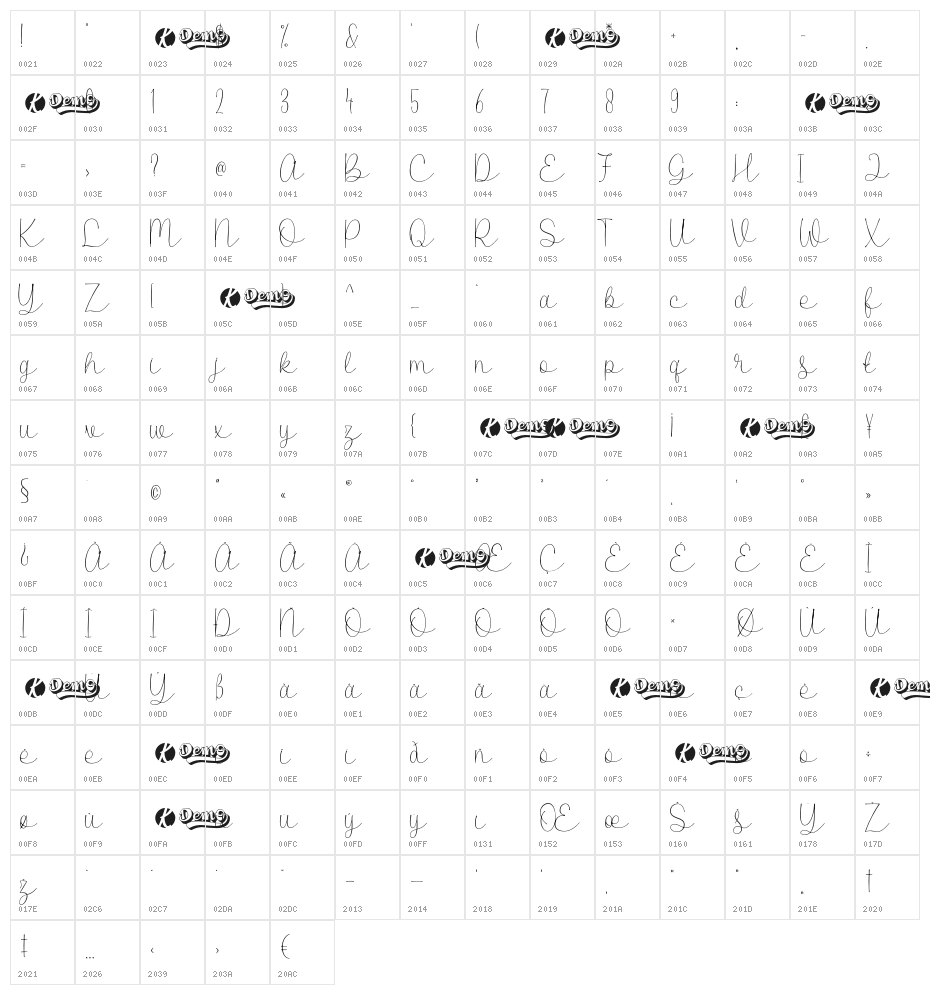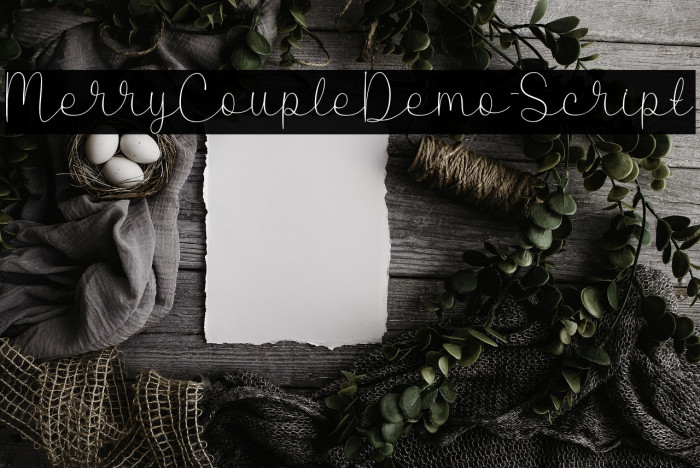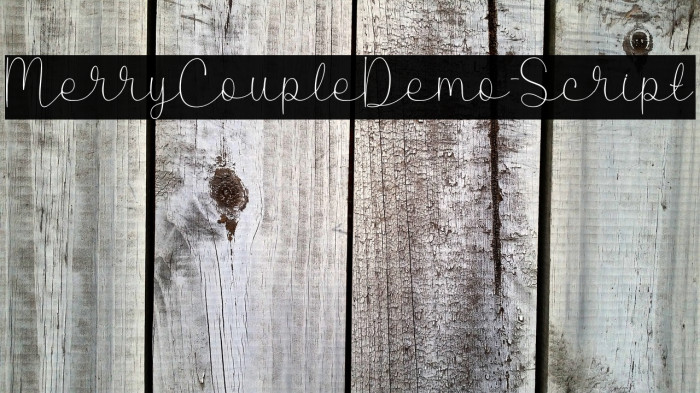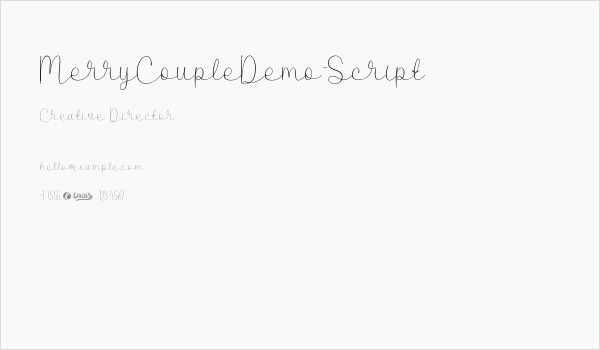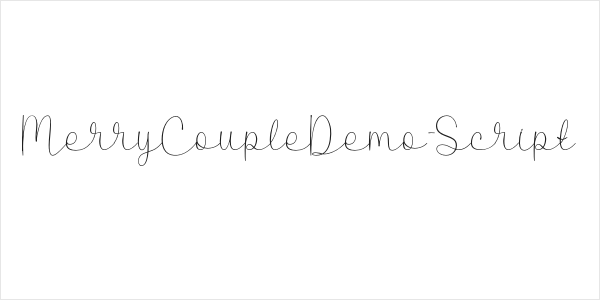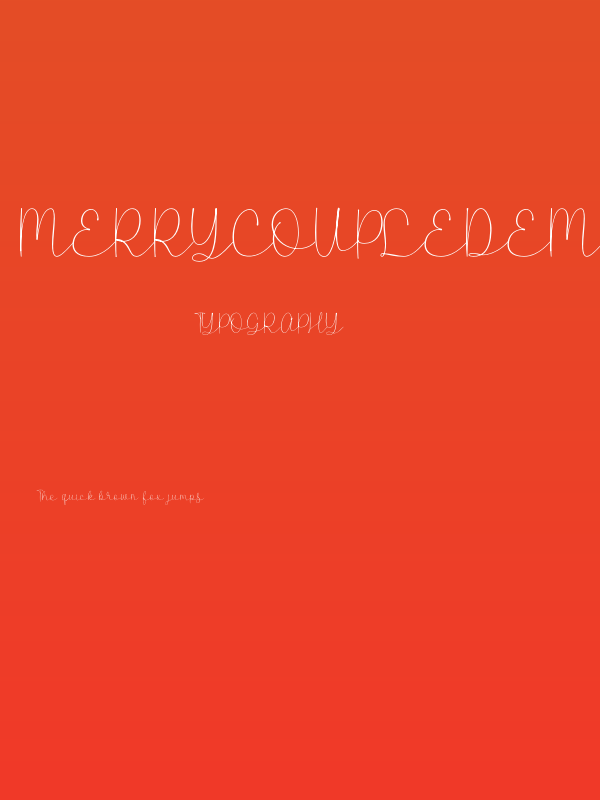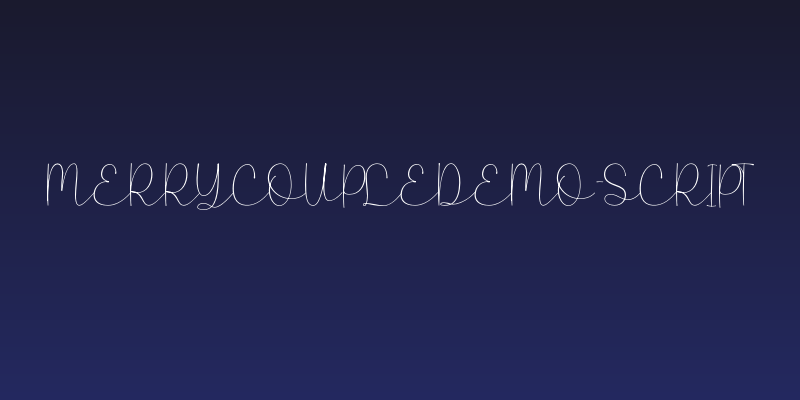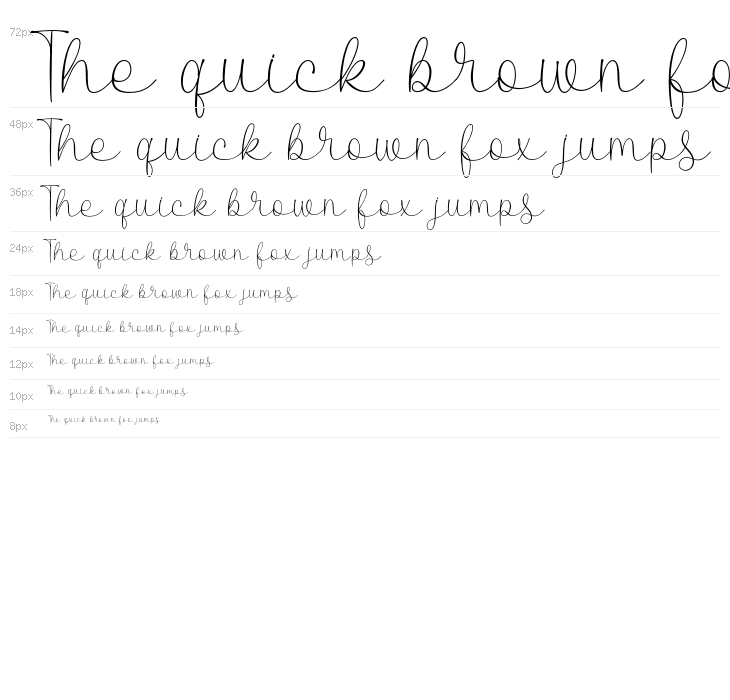
MerryCoupleDemo-Script Font
MerryCoupleDemo-Script Description
This font exhibits a delicate and flowing script style, characterized by its elegant and continuous strokes. The letters are interconnected, creating a seamless and fluid appearance that mimics natural handwriting. The uppercase letters maintain a consistent height, while the lowercase letters feature gentle loops and curves, enhancing the font's graceful aesthetic. The numerals are slender and align well with the overall script style, maintaining the font's cohesive look. Special characters are integrated smoothly, complementing the font's elegant design. This font is ideal for projects that require a personal and sophisticated touch.
| Use Case | Logos, Invitations, Personal branding |
| Proposed Projects | Wedding invitations, greeting cards, personal branding, and elegant packaging. |